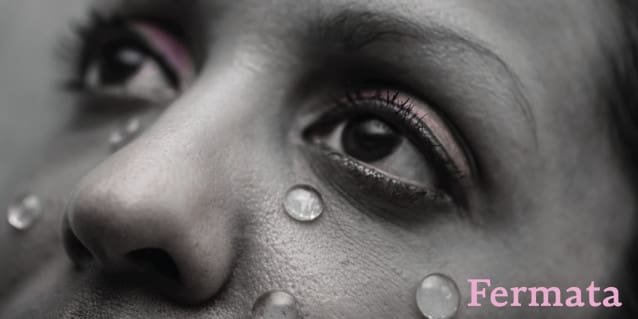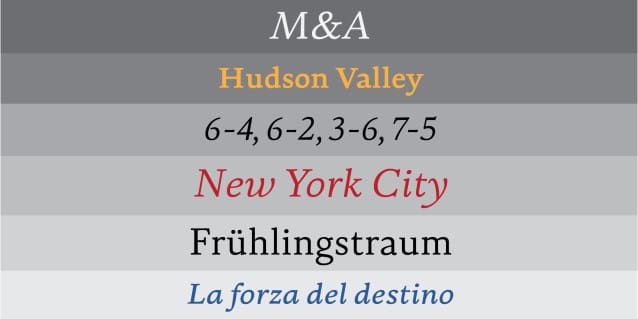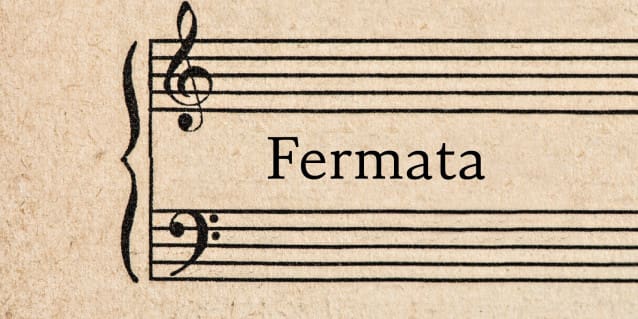
Fermata Font Family
Fermata Font Family is an original calligraphic textface inspired by humanist serif typefaces from the 16th century, characterized by the translation contrast of a handwritten pen stroke, monumental Roman capitals, and true italics. Fermata Font has been modernized for 21st century textual requirements, with clean lines, moderated contrast, and a seamless blending of italics and lining characters into the text form, while still retaining the warmth and subtle idiosyncracies of the handwritten origins of old style serifs. The font was developed with invaluable advice and mentorship from Hannes Famira.